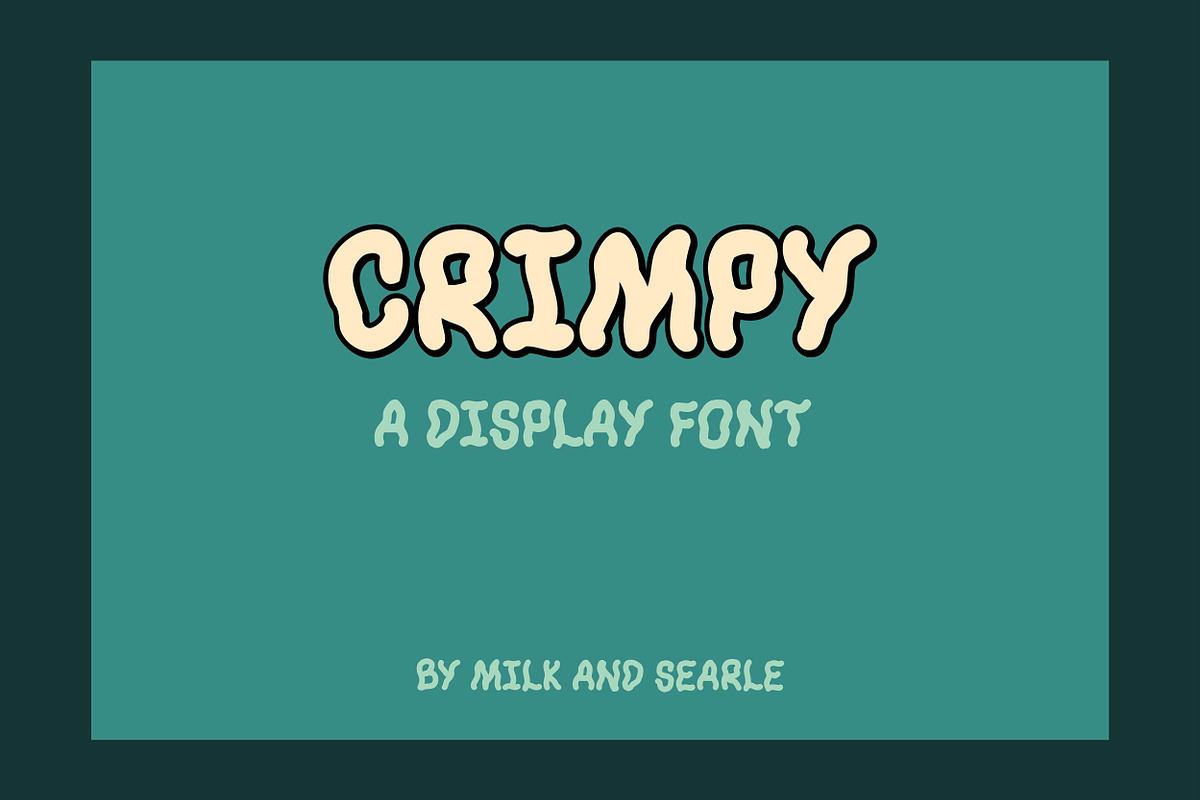
Crimpy Font Free Download is a fun, wavy, and delightfully crinkly display typeface that adds movement and personality to your designs. With its playful distortion and hand-drawn charm, Crimpy is perfect for posters, album covers, packaging, kids' products, creative branding, and anything that needs a quirky, eye-catching twist.
Designed to break the rules of traditional typography, Crimpy Font Free Download features uneven lines and organic shapes that create a sense of rhythm and spontaneity. It’s a great choice for designers looking to inject fun, creativity, and a handmade feel into their projects.
Crimpy pairs well with clean sans-serifs or bold graphics, allowing you to create dynamic, layered visuals that feel fresh and unique. Whether you're designing for an indie brand, an art event, or a whimsical product label, this font makes sure your message gets noticed.